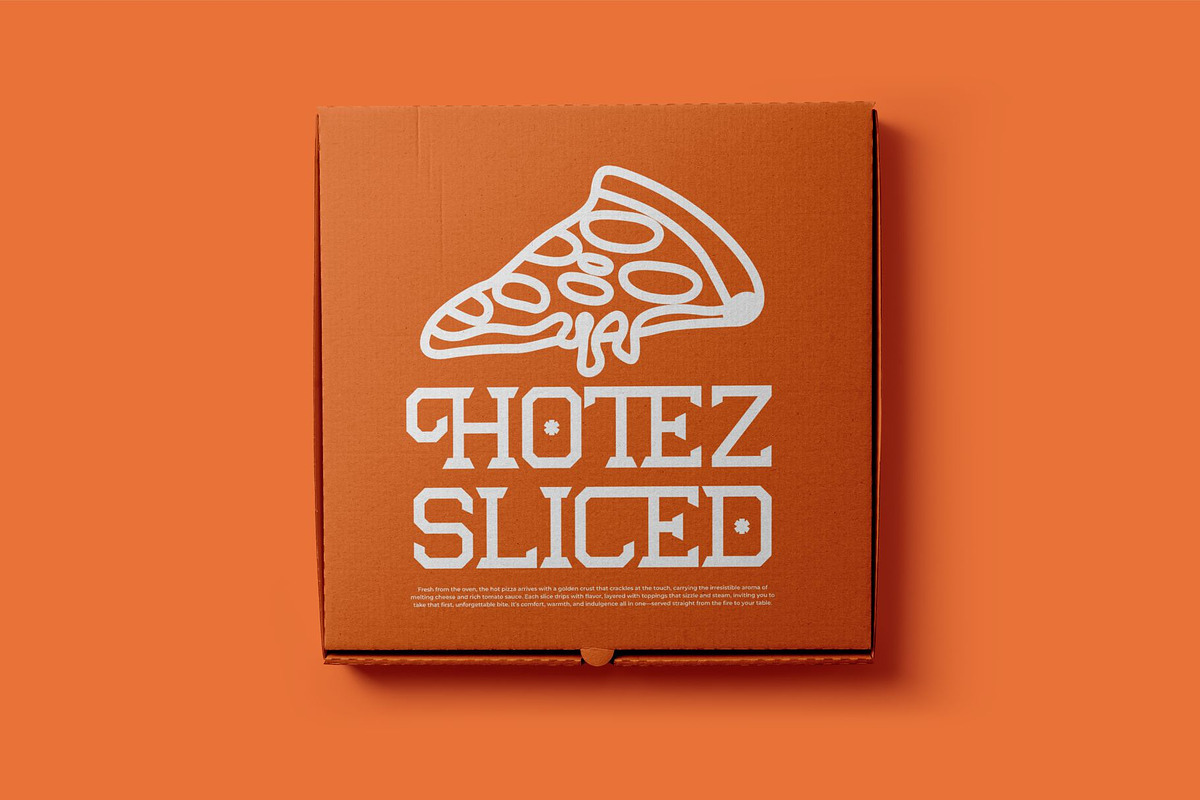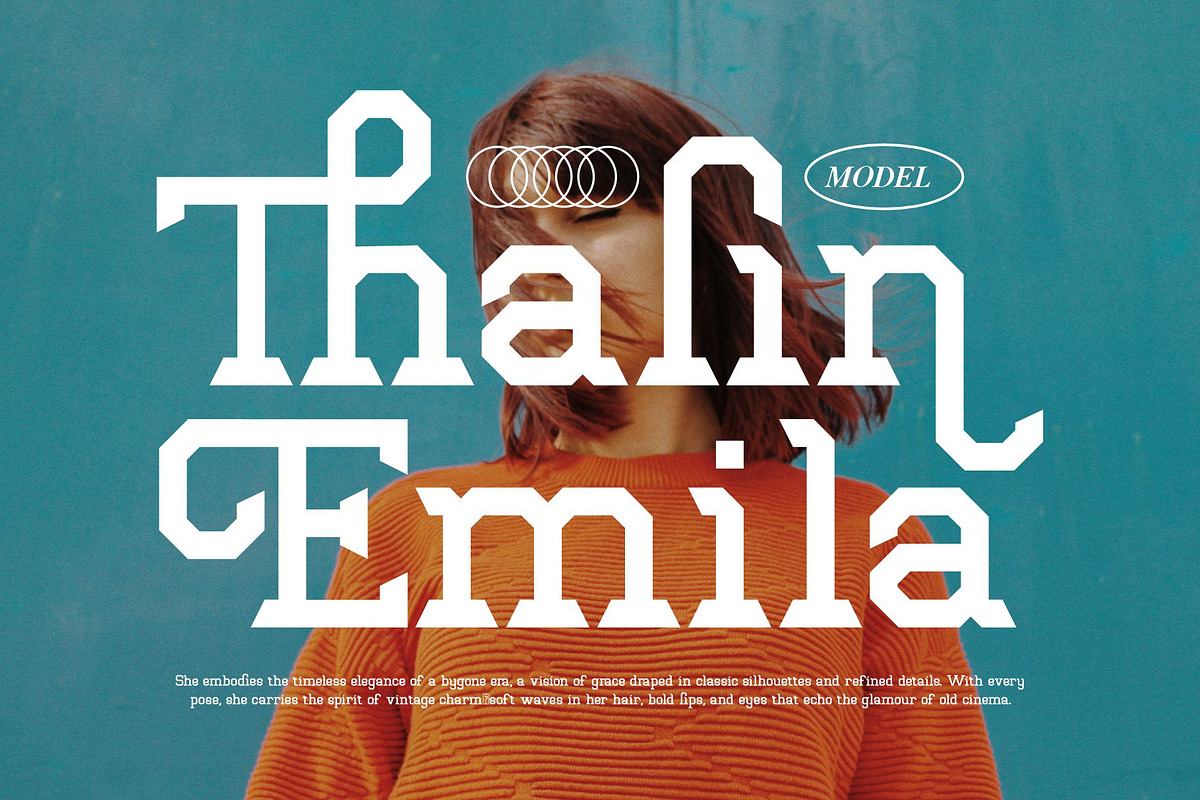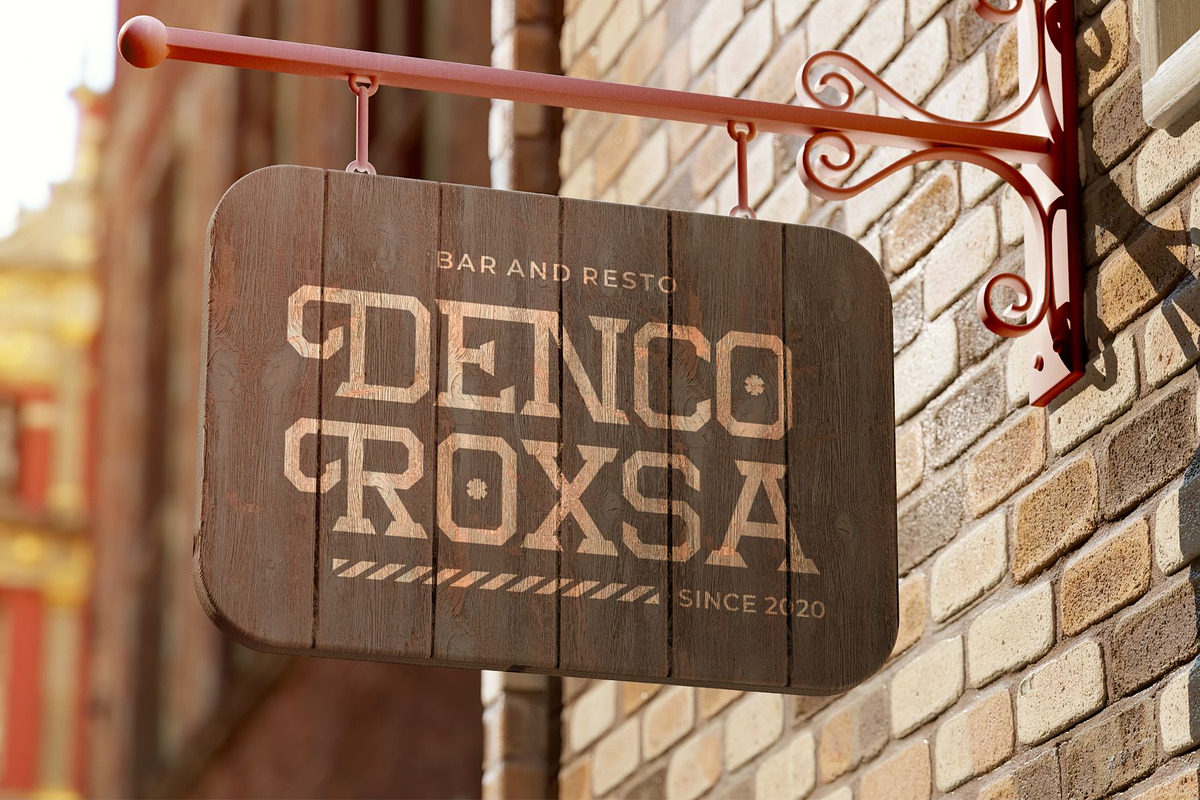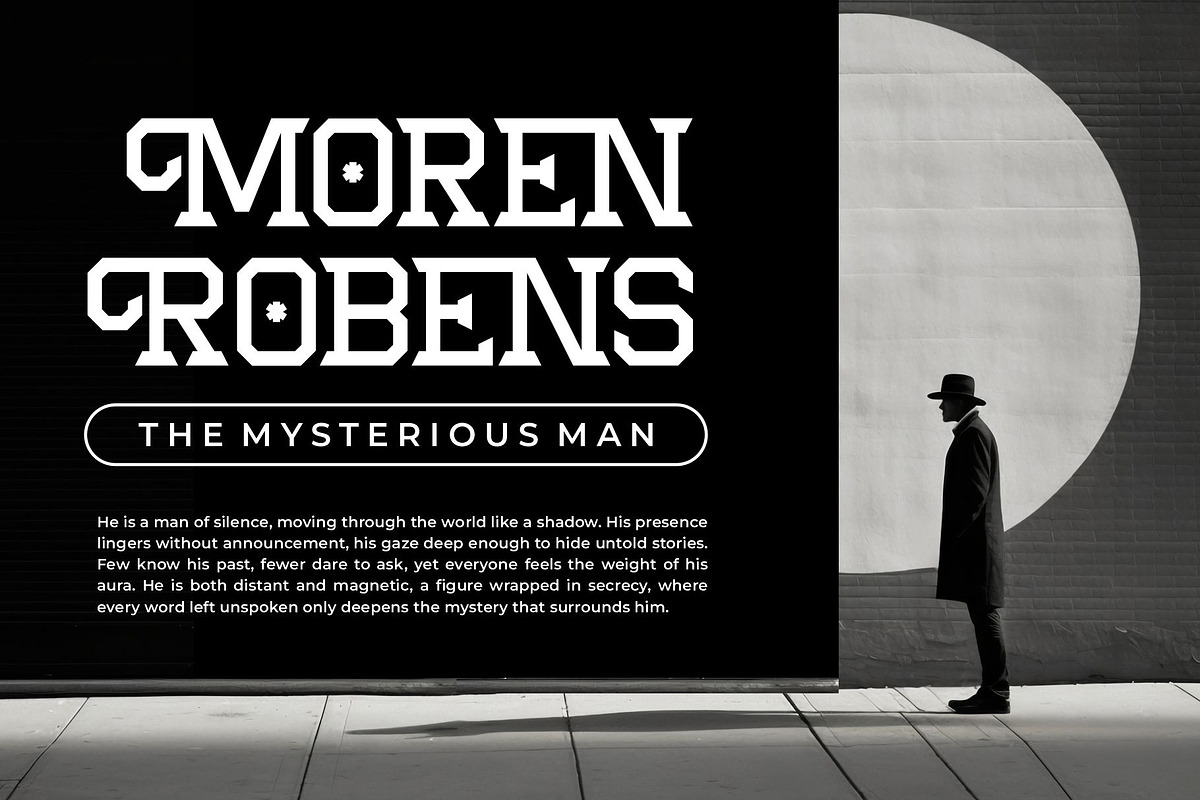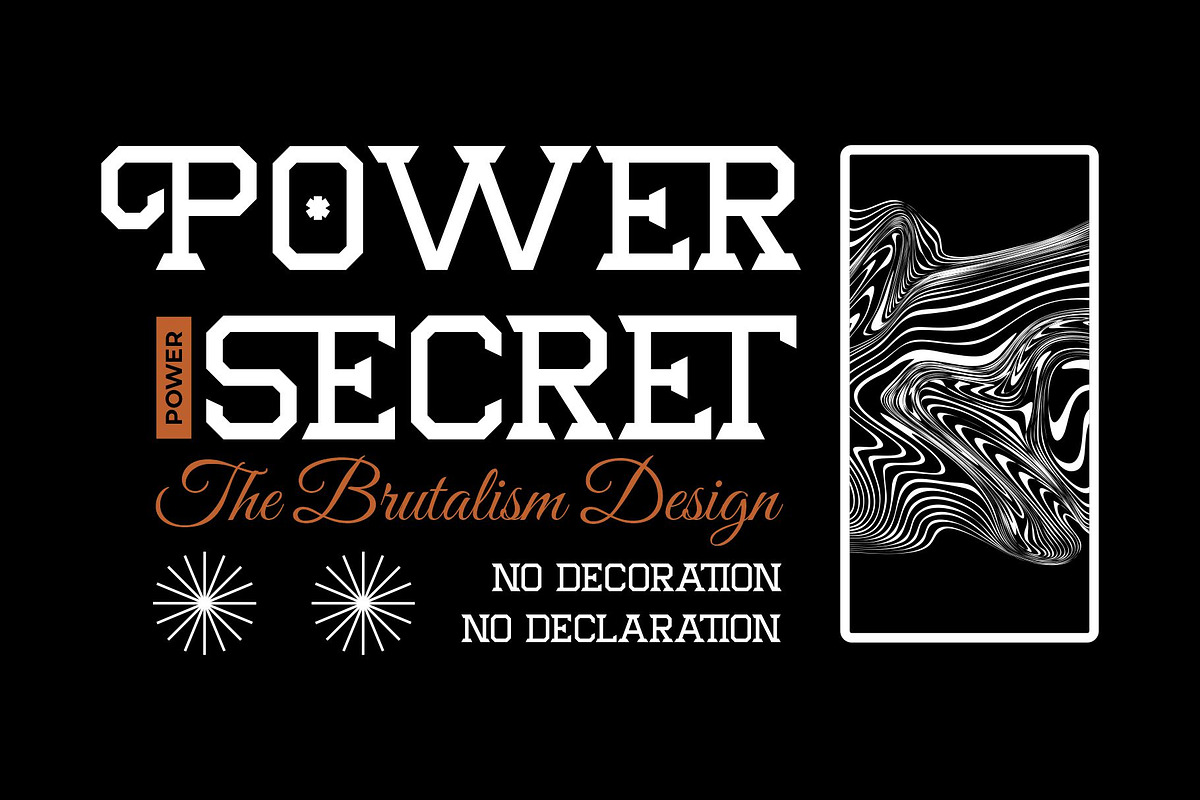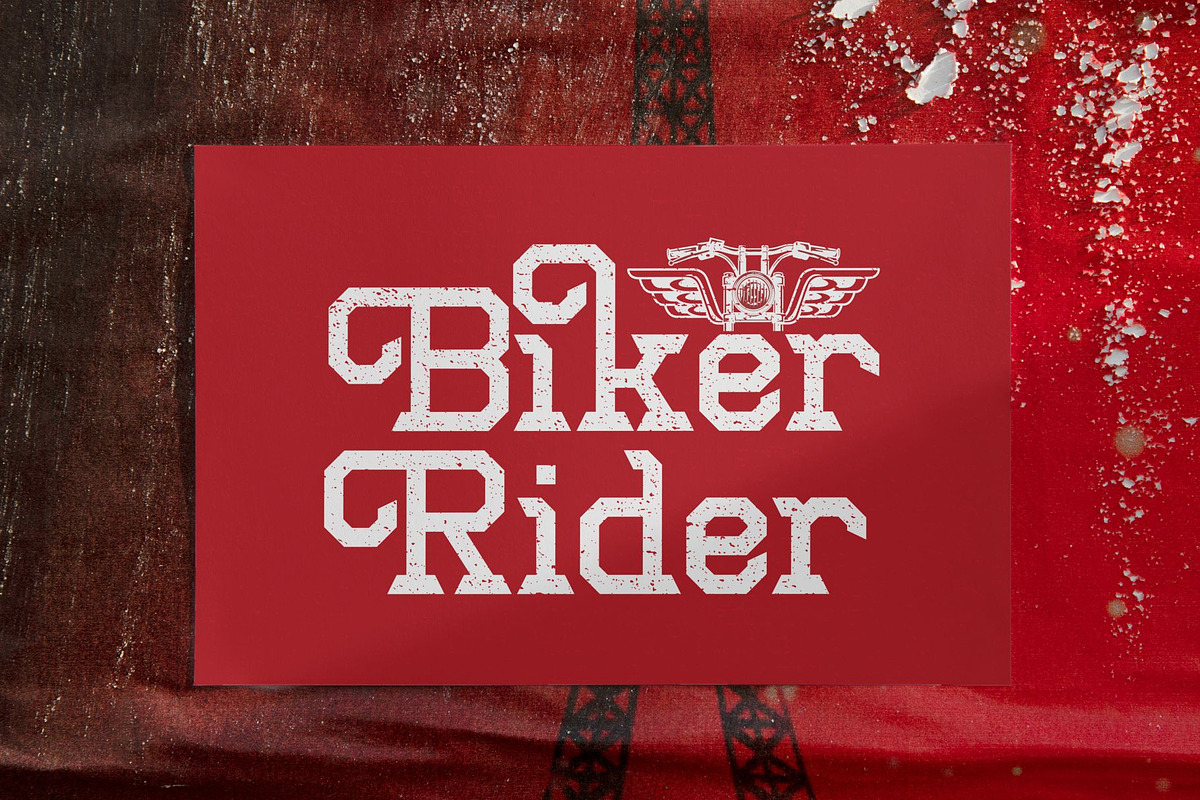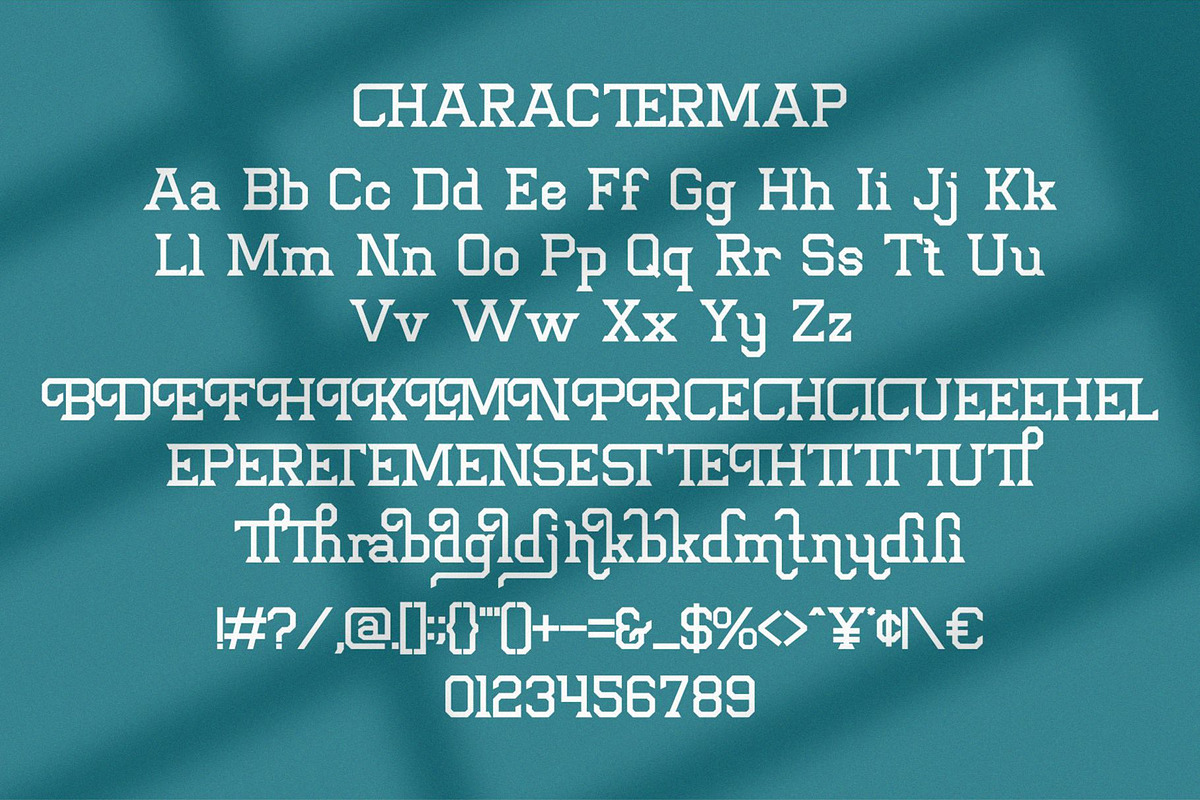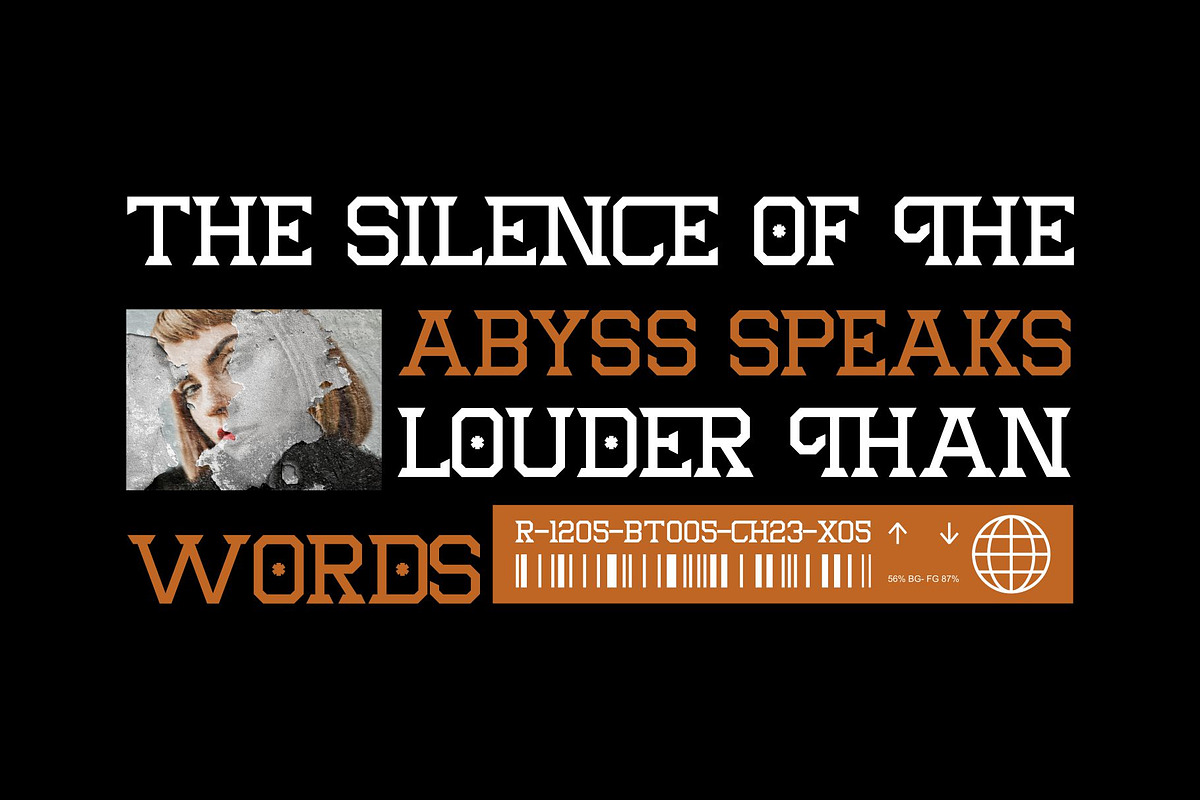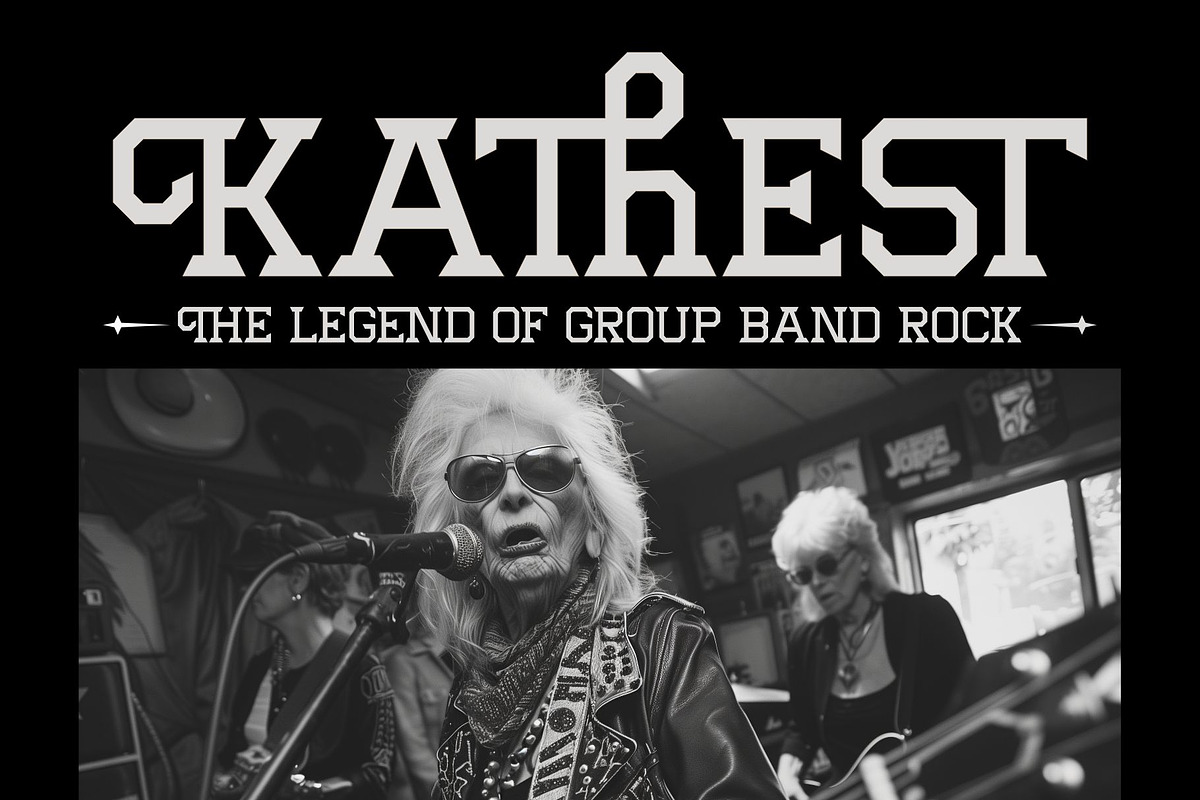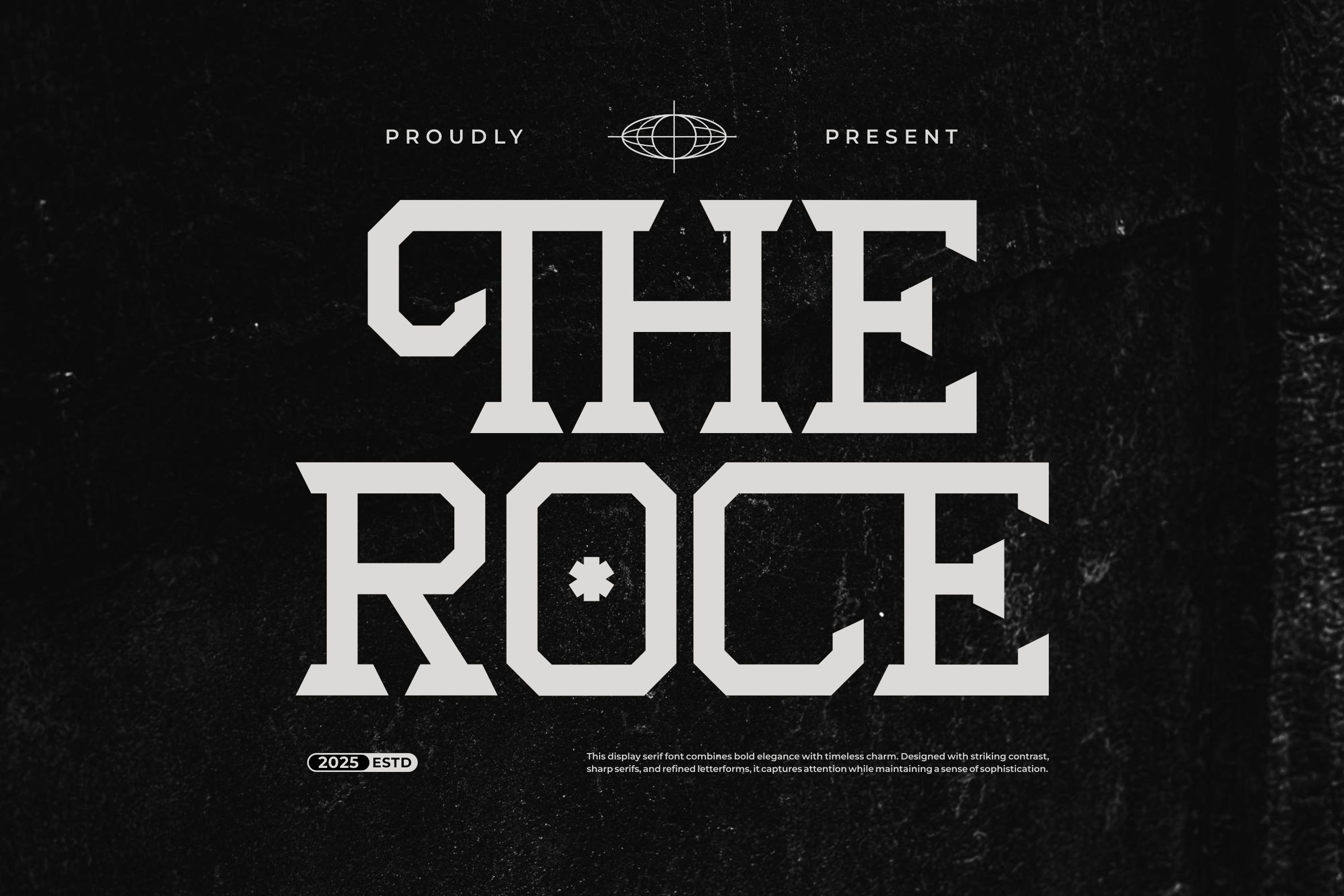
Theroce || Modern Slab Serif Font
Theroce Slab Serif is a modern font type for all branding and logo designs. This modern Slab Serif font has a beautiful character. This font is suitable for invitation card designs, cool logos, movie titles, movie names, business cards, book titles, brand names, and various other designs. Theroce Slab Serif is a smooth serif font that exudes sophistication and the moment. Its stylish ligatures make this font a perfect partner for any project.